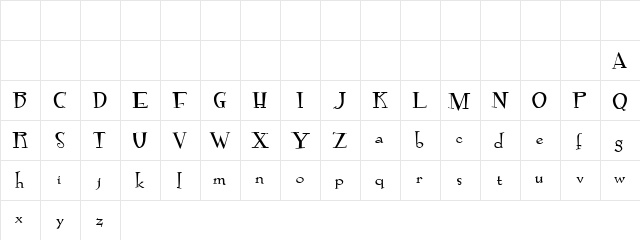
Candlemas Demo Regular
Design Context for Candlemas Demo Typeface
Candlemas Demo is a composed and adaptable typeface that performs quietly and consistently across a wide range of design contexts.